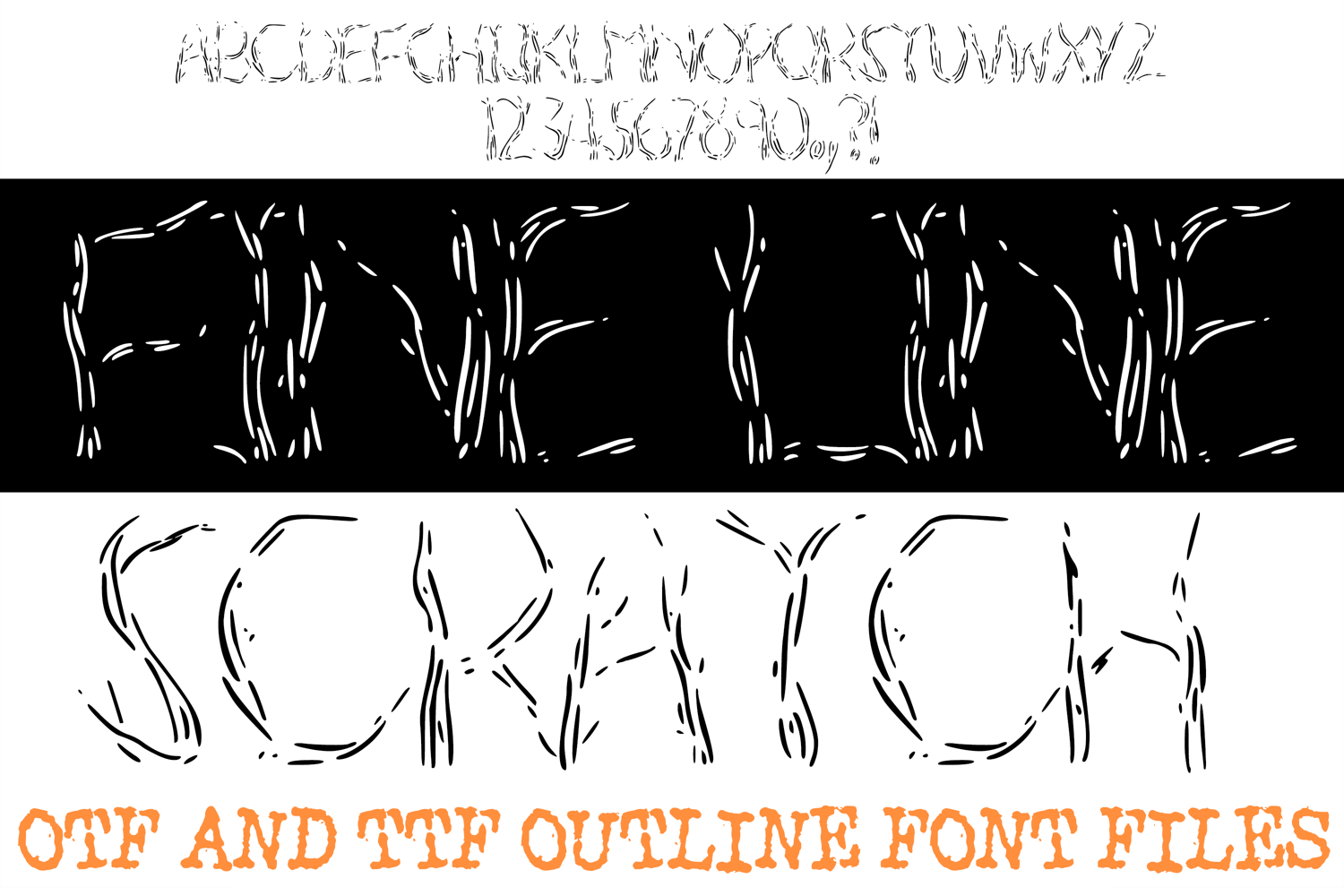
Fine Line Scratch ABC Font Typeface Thin Alphabet OTF
Add subtle, hand-drawn texture to your artwork with Fine Line Scratch, a unique display font constructed from delicate, parallel hatching strokes and loose sketch lines. Featuring an airy, etched aesthetic, this font combines clean line-art outlines with an authentic, hand-drawn feel.
Whether you are designing minimalist graphics, sketched quotes, modern craft signage, product packaging, or edgy apparel prints, Fine Line Scratch brings an artistic, illustrative vibe. Its light, textured structure makes it ideal for crafters and designers looking for a distinctive alternative to heavy solid fonts.
Ideal For:
Paper Crafts & Stationery: Greeting cards, minimalist prints, sketchy quotes, and artistic bookmarks.
Apparel & Merch: Line-art t-shirts, tote bags, modern graphic hoodies, and custom accessories.
Digital Projects: Sticker sheets, social media graphics, website headers, and digital scrapbooking.
Artistic & Custom Crafts: Product packaging, DIY craft projects, laser etching, and modern decals.